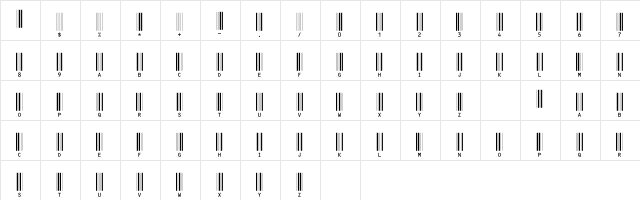
C39HrP24DhTt Normal Font Preview
C39HrP24DhTt Normal
Design Context for C39HrP24DhTt Typeface
C39HrP24DhTt is a composed and adaptable typeface that performs quietly and consistently across a wide range of design contexts.